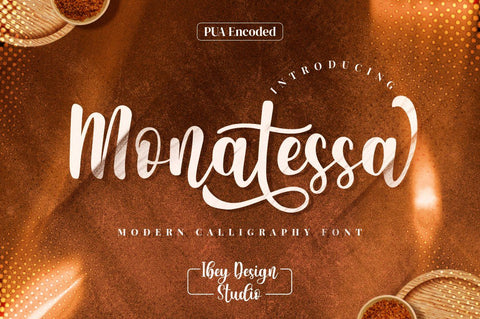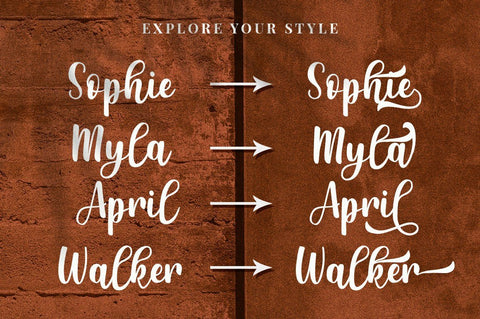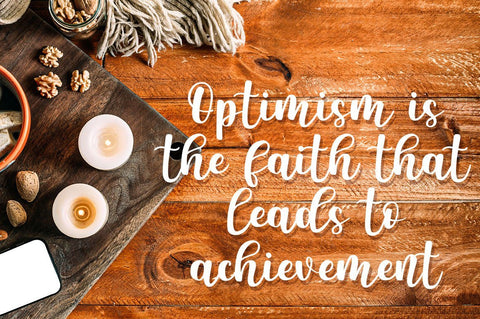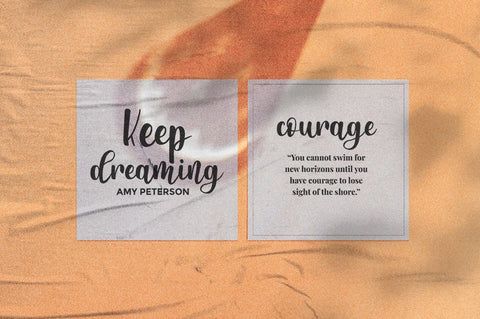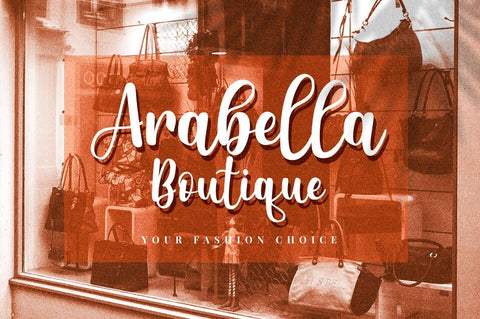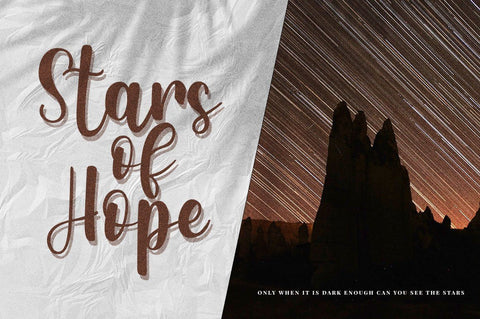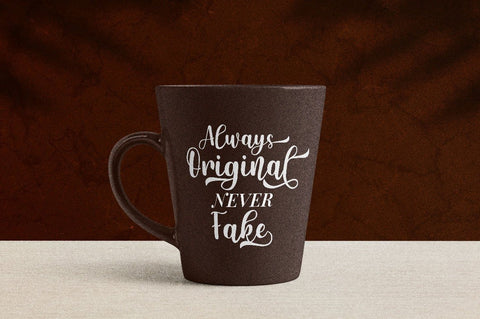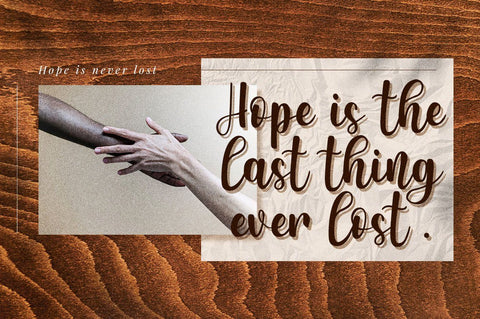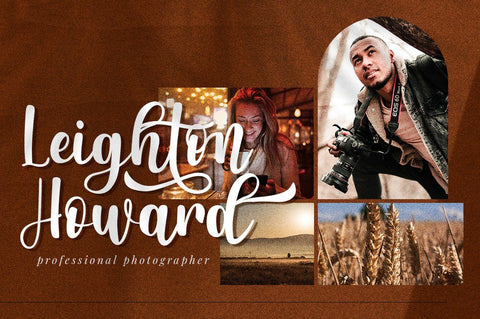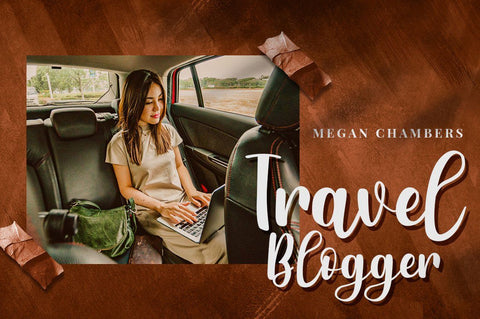
Monatessa - Modern Calligraphy font
Monatessa Modern Calligraphy font is a sweet and delicate handwritten font. Dainty and joyful, this font will be ideal for writing wedding invitations, cards or any other design that may need a romantic, personalized touch!
Monatessa Modern Calligraphy font is PUA encoded which means you can access all of the glyphs and swashes with ease!